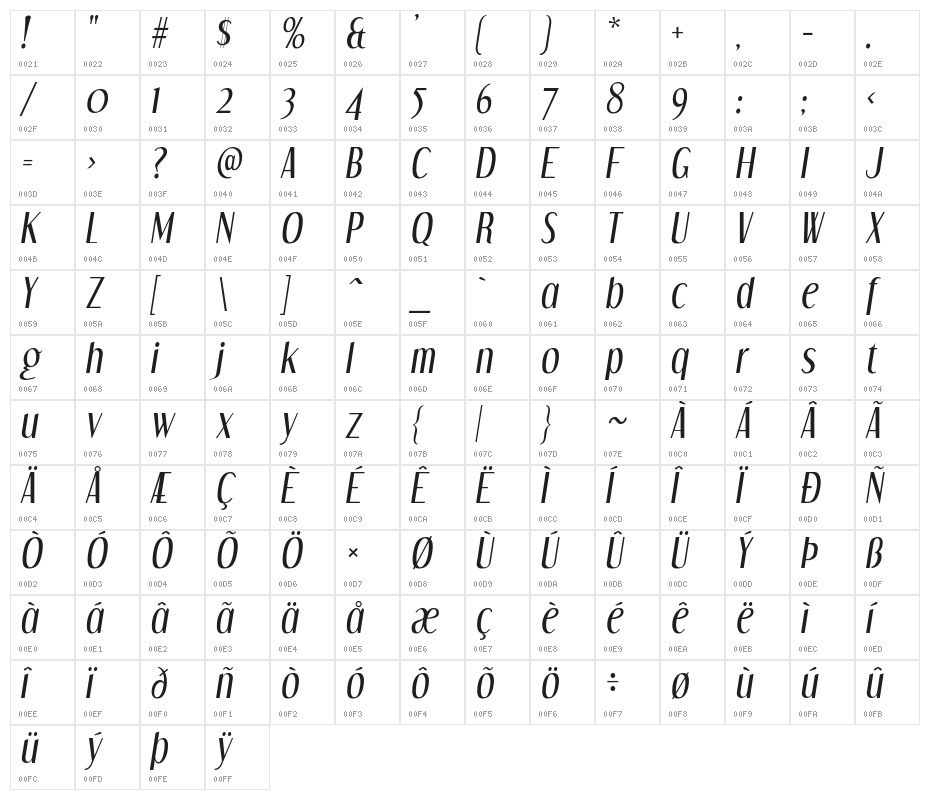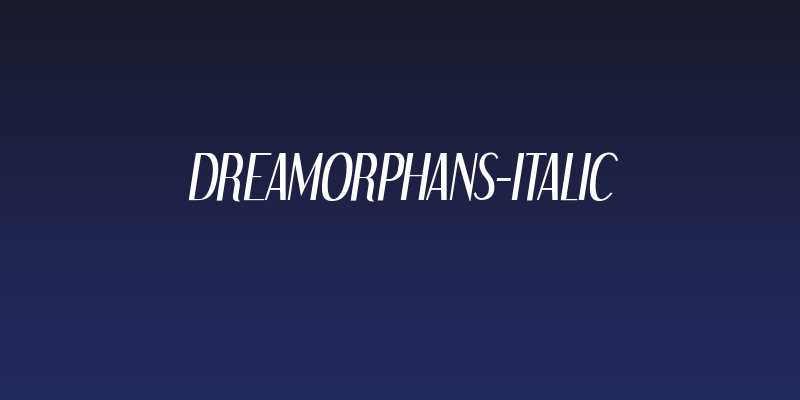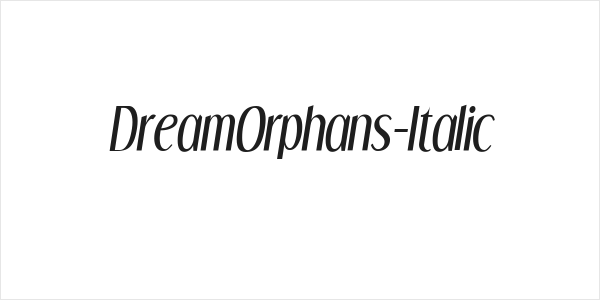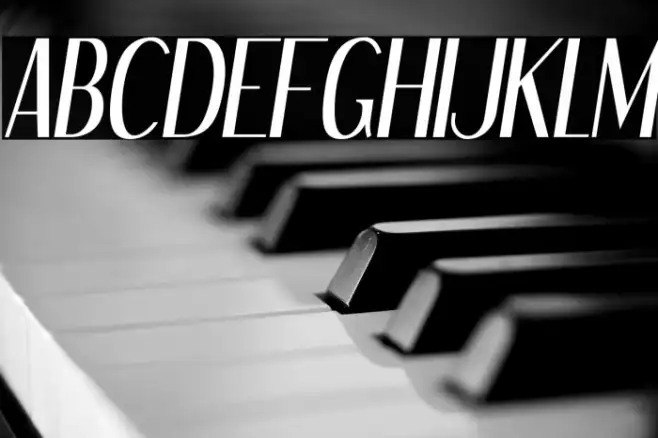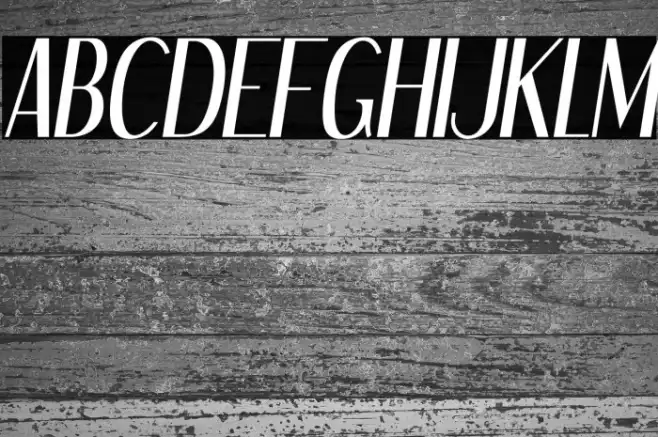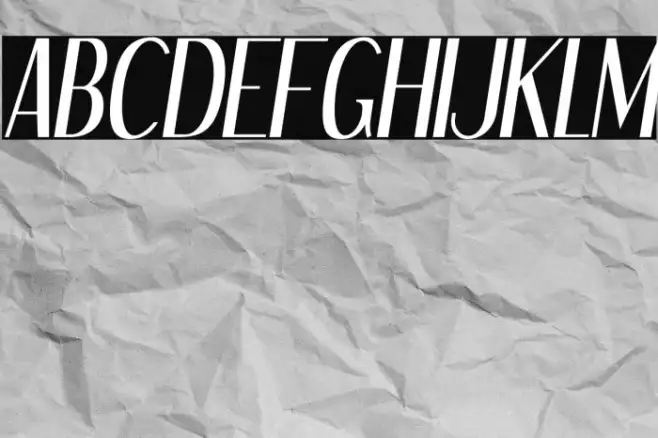
DreamOrphans-Italic Font
DreamOrphans-Italic Description
This font features a sleek and elegant italic style with a modern touch. The characters are slightly condensed, giving it a sophisticated and streamlined appearance. The uppercase letters are tall and slender, while the lowercase letters maintain a consistent flow with subtle curves. The numerals are distinct and align well with the overall design, providing clarity and readability. Special characters are thoughtfully designed to complement the font's aesthetic. The strokes vary in thickness, offering a medium contrast that enhances its visual appeal without compromising legibility.
| Use Case | Headlines, Logos, Editorials |
| Proposed Projects | Ideal for fashion magazines, luxury branding, elegant invitations, and modern editorial layouts. |